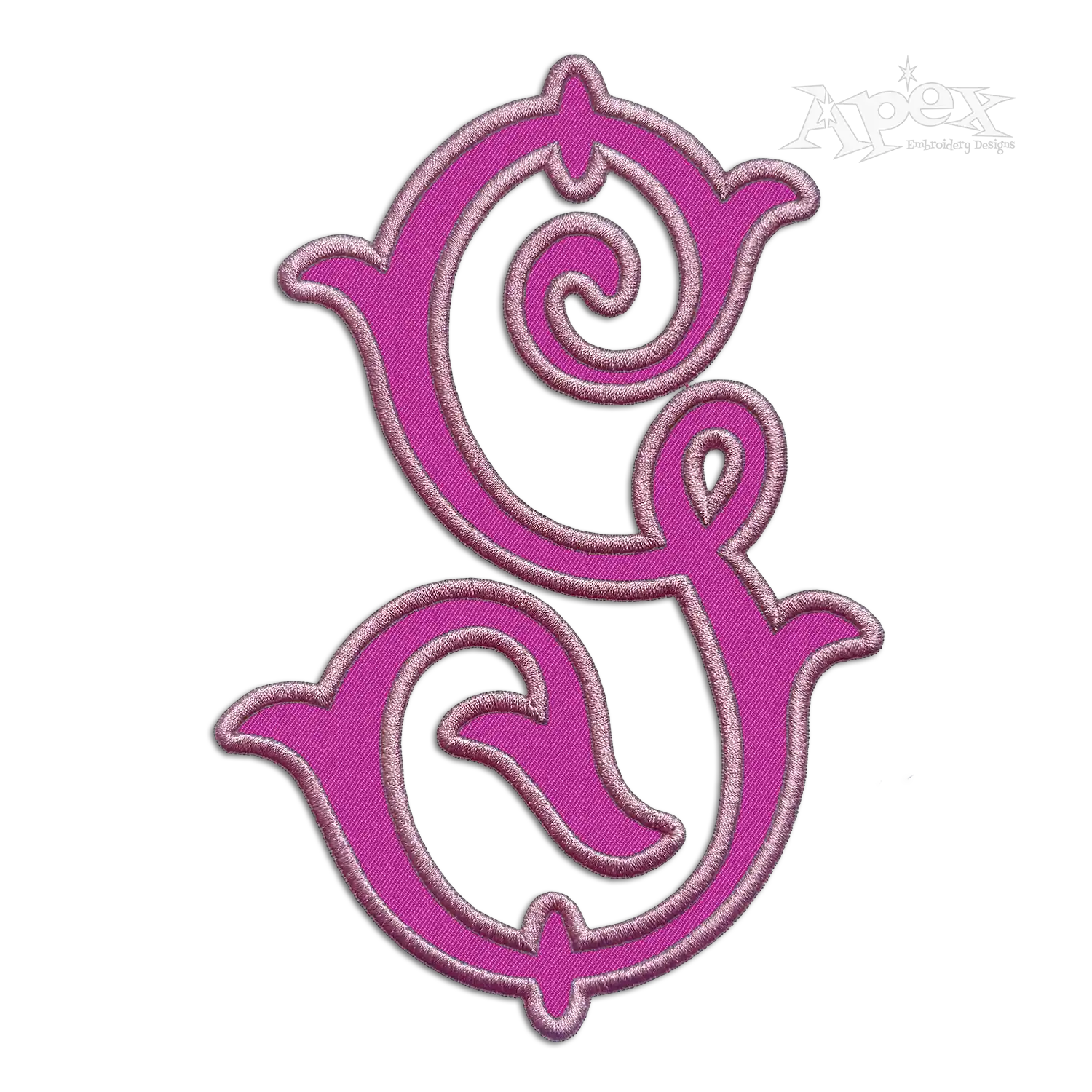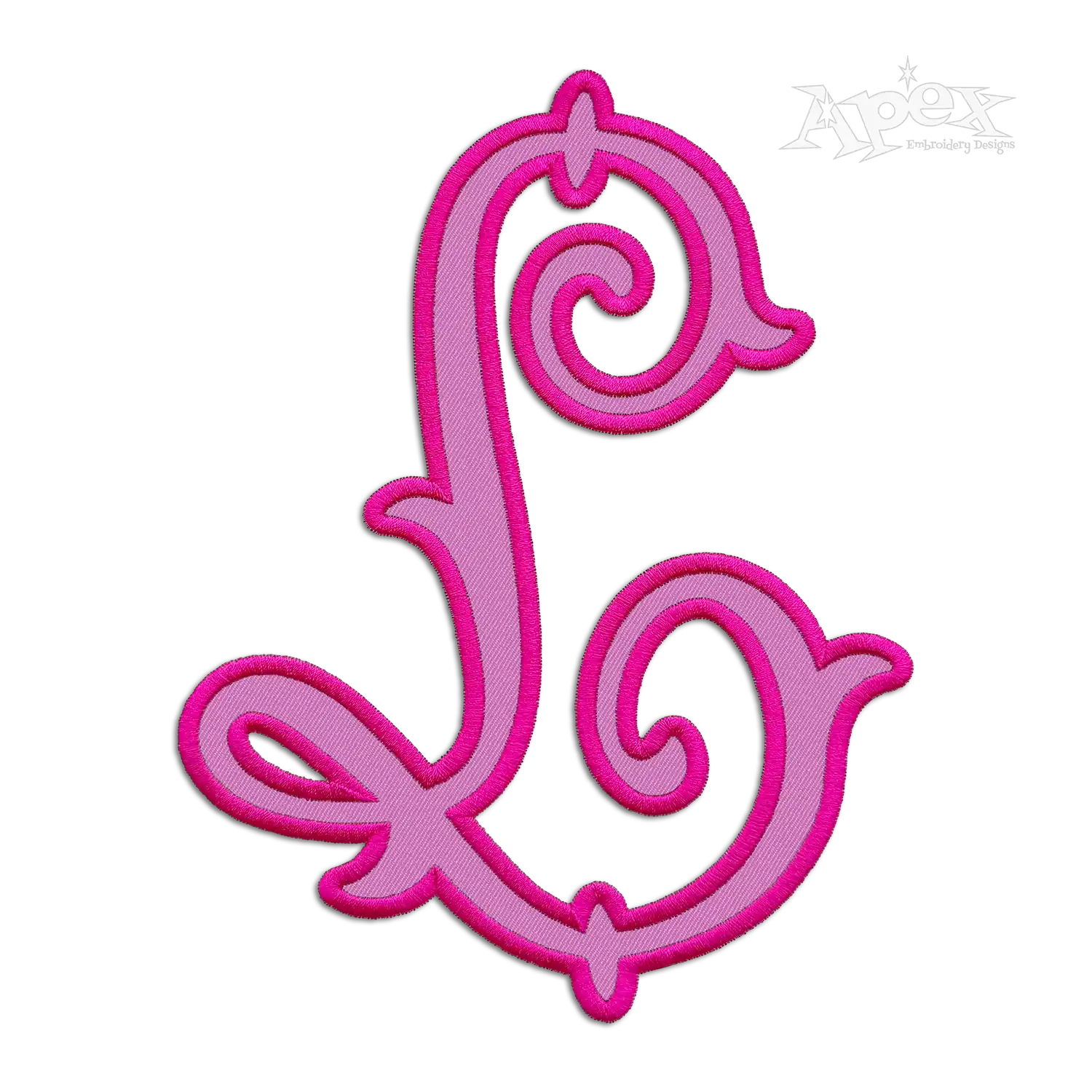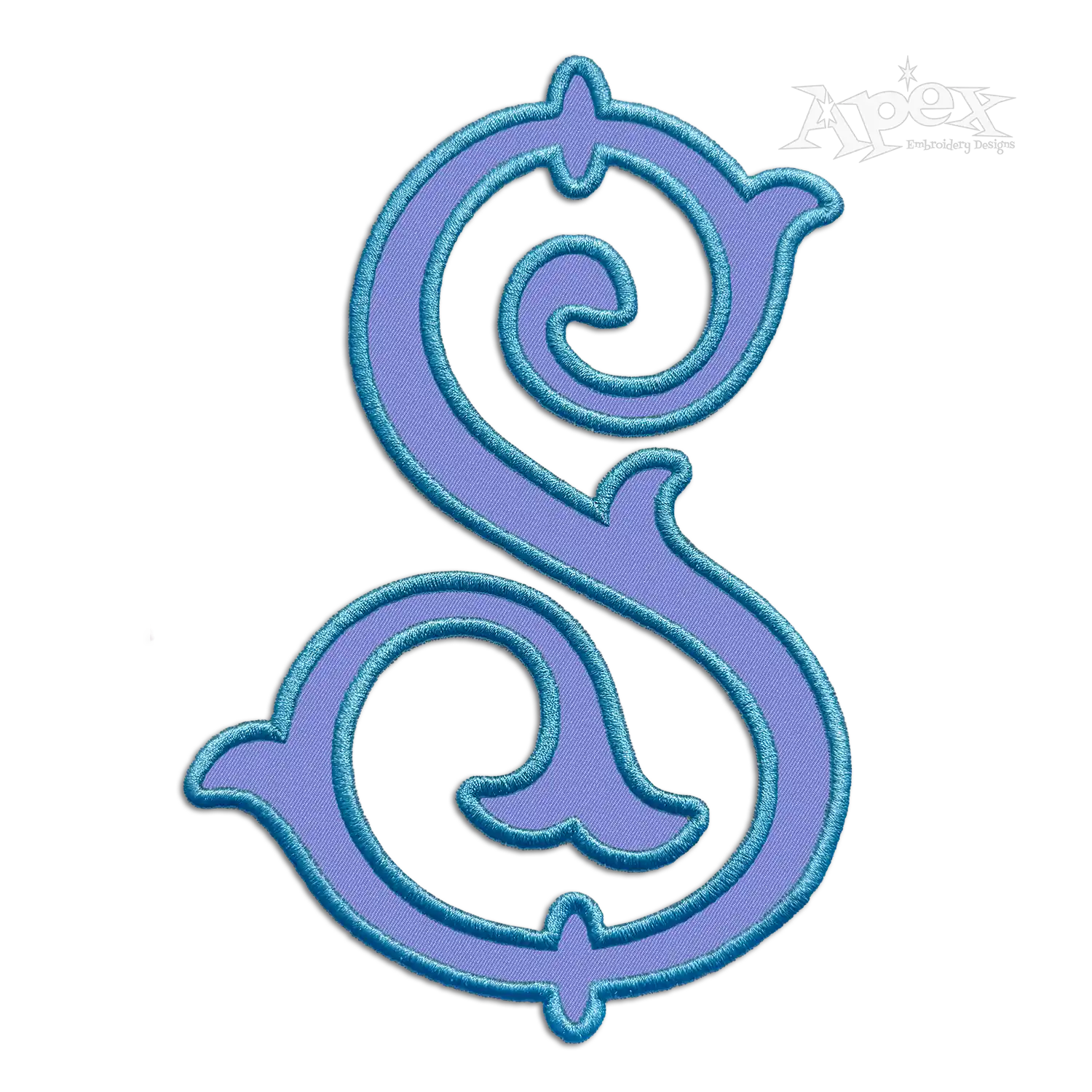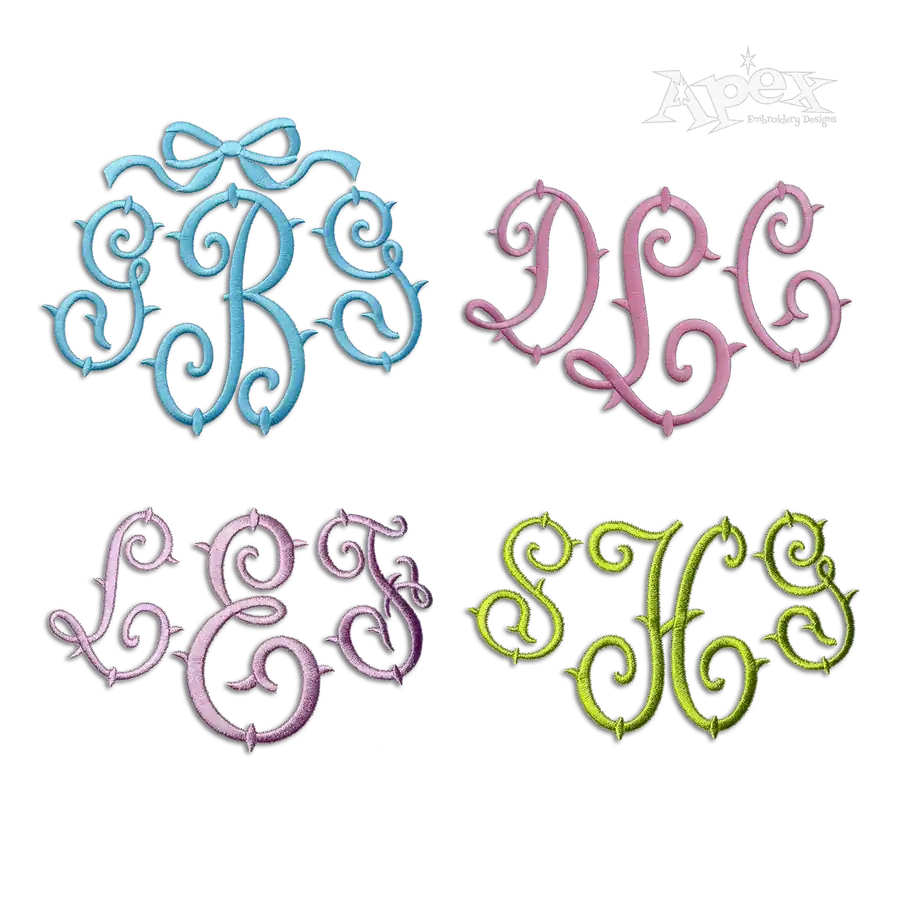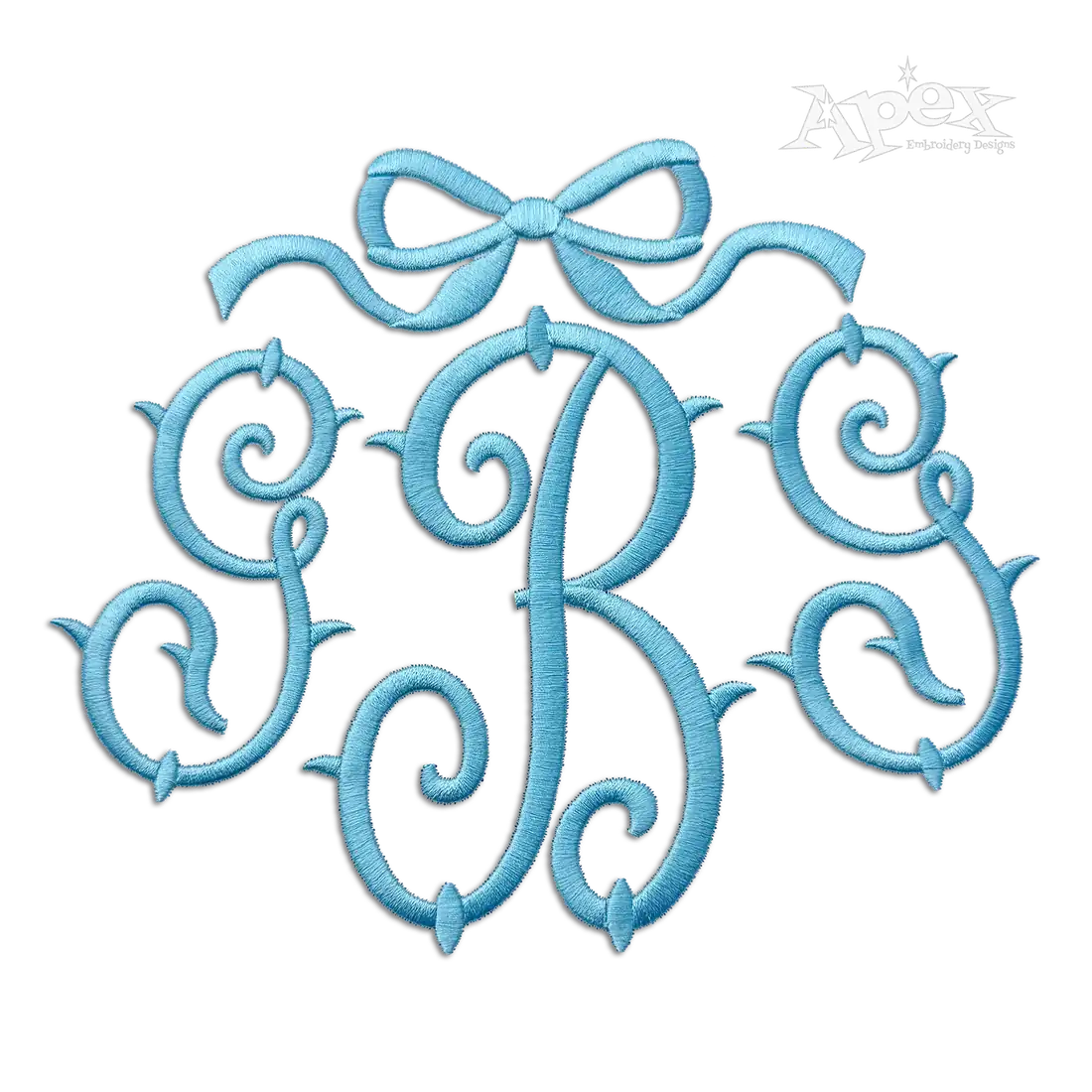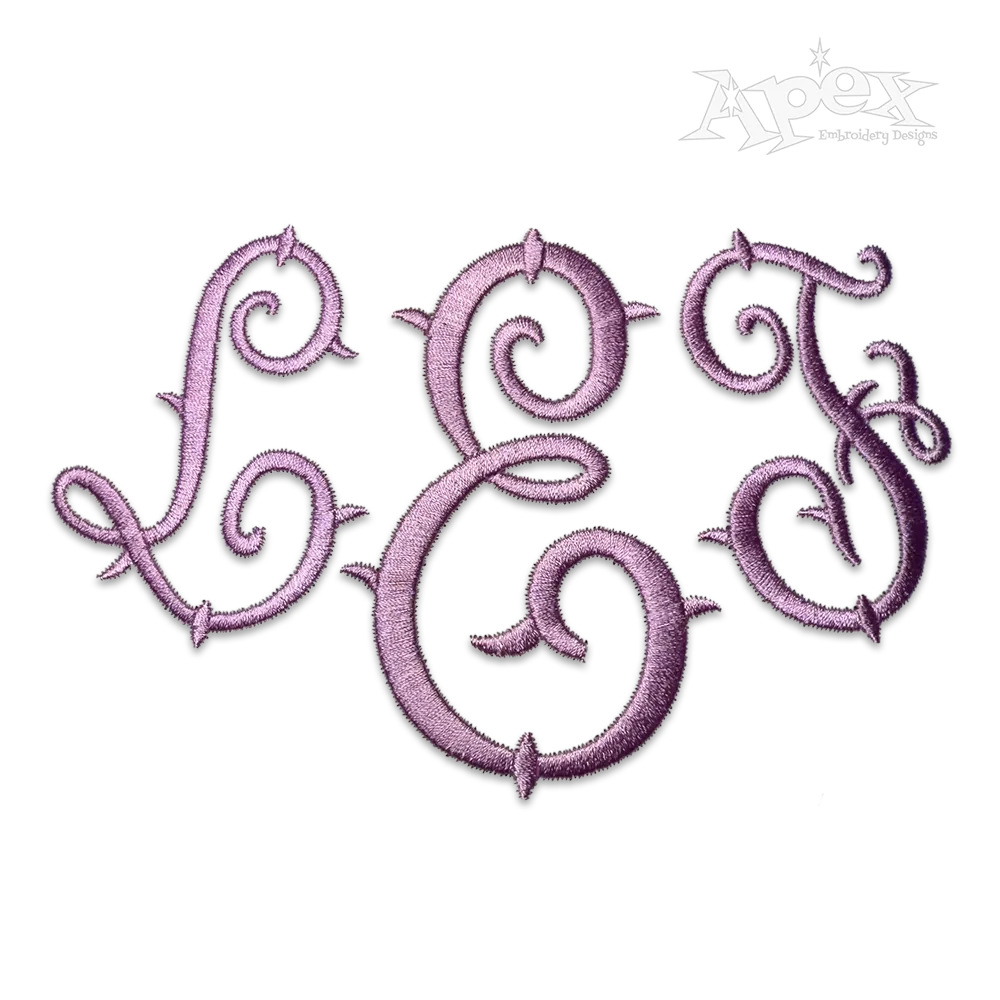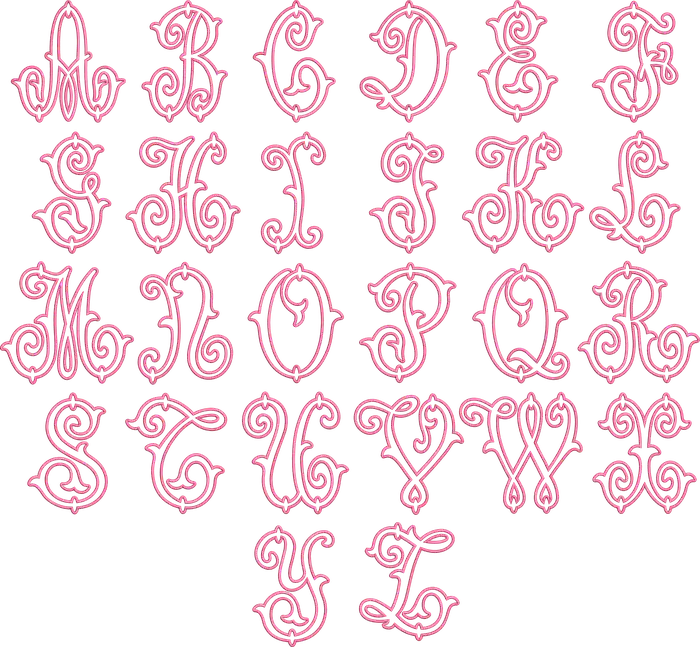
Arabesque Embroidery Font
Intricate wrought-iron scrollwork meets classical calligraphy in Arabesque Embroidery Font. Sweeping loops, dramatic flourishes, interlocking ribbons transform single initials into regal centerpieces. Digitized with balanced stitch density, calculated pull compensation, fluid satin paths. Thread catches light across sculpted contours, bringing Old World luxury, timeless romance, bespoke distinction to fine needlework.
- Regular Set (Satin Stitch): Includes 3", 4", 6" letter heights. Features dense satin stitch column work, underlay stabilization paths, refined scroll details for medium embroidery projects.
- Extra Large Set (Applique): Includes 8", 10", 12", 14" letter heights. Features precision placement guides, tack-down lines, wide satin border cover stitch. Reduces stitch count on oversized textiles while providing dramatic fabric-fill impact.
Project Ideas for Arabesque
Ornate styling transforms textiles into customized showcase pieces:
- Heirloom Bedding & Master Suites: Center single initial on duvet covers, pillow shams, bolster pillows for stately custom monogramming.
- Luxury Table Linens: Embroider corner placement on linen cocktail napkins, banquet runners, dinner settings.
- Bridal & Personalized Gifting: Stitch bride initial on bridal robes, ring pillows, wedding keepsakes.
- Bespoke Resort Wear & Accessories: Embellish canvas totes, oversized beach towels, linen cover-ups using vibrant embroidery thread.
- Keepsake Quilts: Applique statement letters across nursery quilts, heirloom anniversary throws.
Precise placement ensures balanced composition across garment and home decor items:
- Corner Diagonal: Angle 45 degrees, 1.5 to 2.5 inches from hem on linen cocktail napkins, formal dinner linens.
- Center Chest: Position 3 to 4 inches below neckline on bridal robes, bespoke resort wear shirts.
- Cuff & Sleeve: Scale 3-inch letters on shirt cuffs, robe wrists for subtle personalized gifting accents.
- Border & Focal Placement: Center 2 to 4 inches above lower towel border, or dead center on pillow shams, canvas totes.
Arabesque Craft & Letterform Details
Letterforms honor European ironwork, hand-drawn arabesque flourishes. Graceful stem curves transition smoothly into tapered ribbon terminals. Regular satin stitch alphabet uses variable stitch angle logic. Keeps satin columns lustrous, prevents thread bunching at tight apex joints. Extra large applique version uses secure placement guides, precise cut lines, full-coverage satin border stitching. Minimizes stitch count while delivering bold tactile presence. Every curve digitized for smooth stitch flow, zero puckering, clean edge definition across delicate silks or heavy linens.